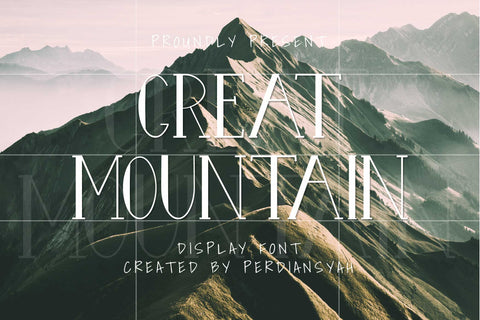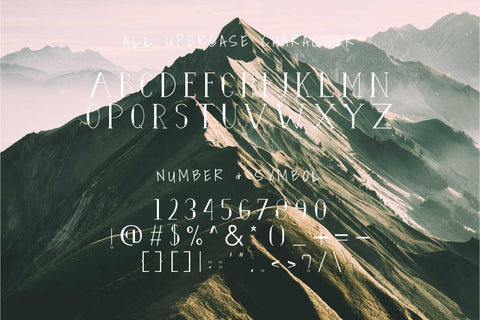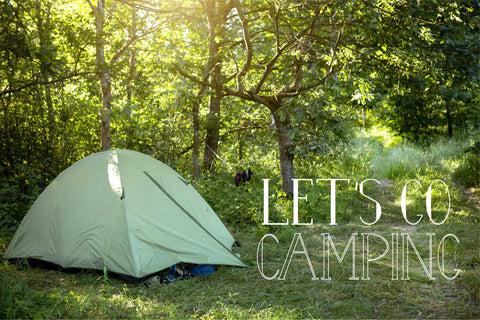
Great Mountain Display Font
Great Mountain Display Font is a design font with an elegant style that can enhance the quality of your designs.
Great Mountain Display Font – This Font is perfect for designs, logos, social media, brands, advertisements, product designs, handwritten quotes, product packaging, headers, posters, merchandise, and other designs.